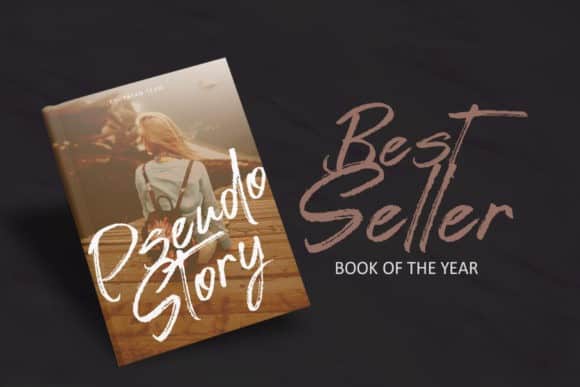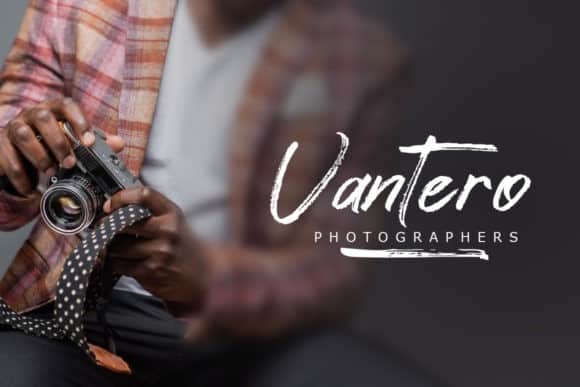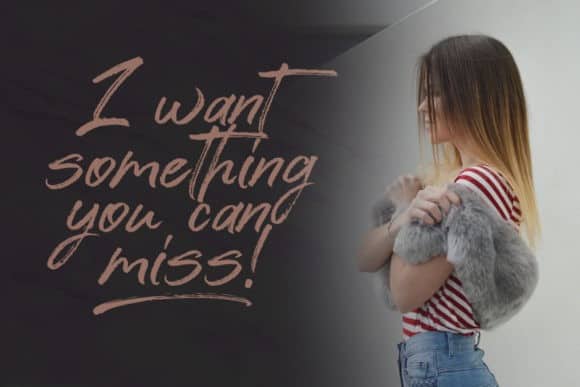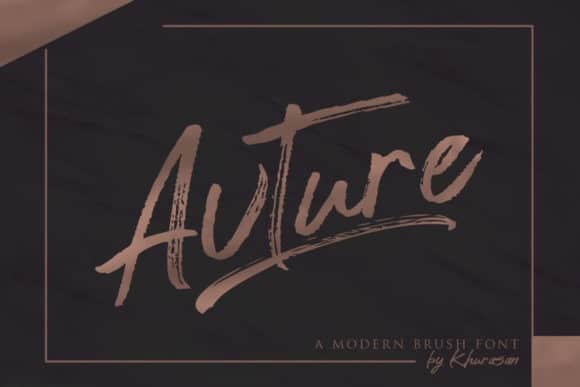
Avture Brush Font
Avture Brush Font is a handwritten font created with brush style and to fit to use as branding project designs. It features an unique style and will add rough and natural feel to your upcoming projects. Made from font designer named Khurasan. It’s an exquisite handwritten font, masterfully designed to become a true favorite. It maintains its classy calligraphic influences while feeling contemporary and fresh. Fall in love with it and bring your projects to the highest levels!